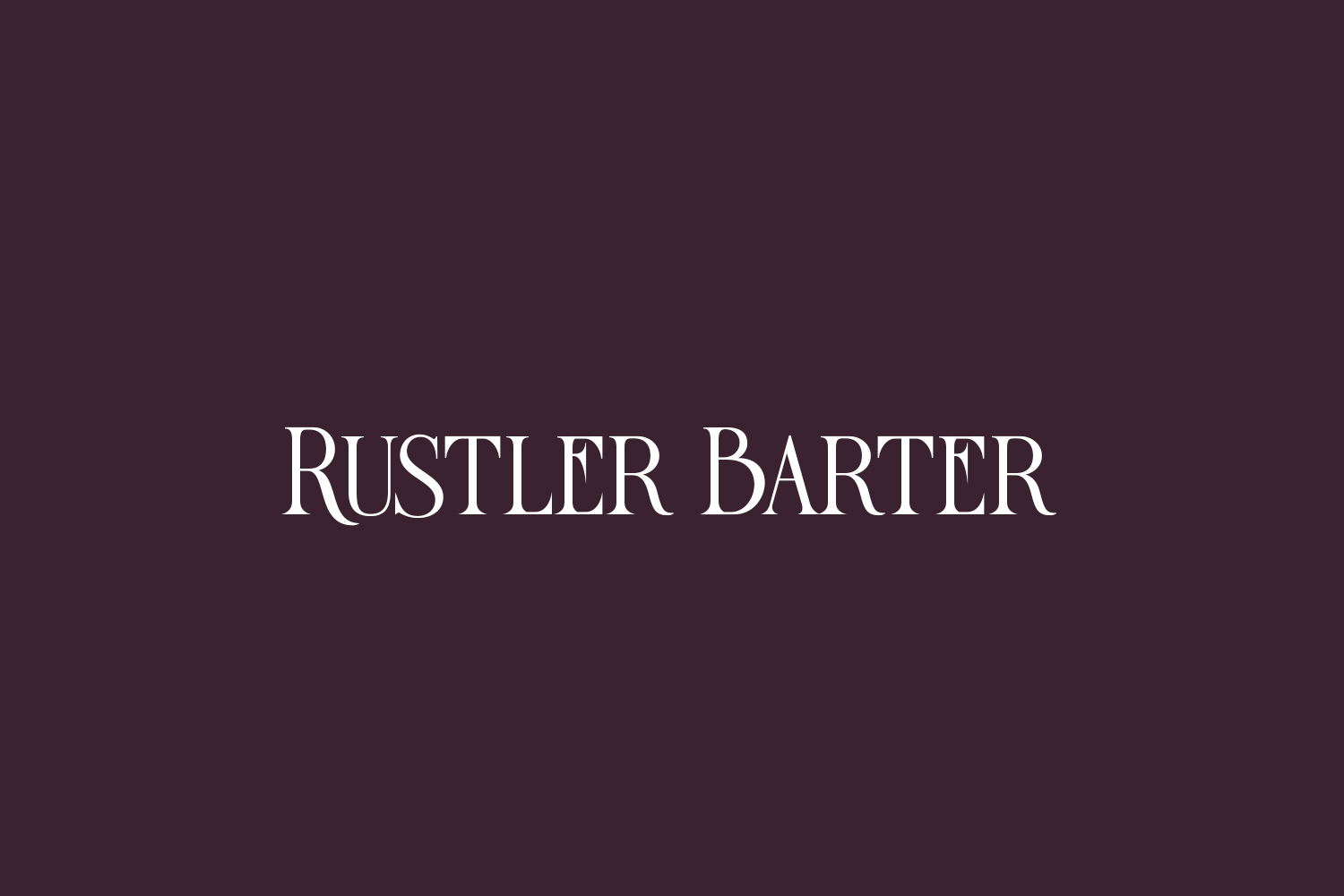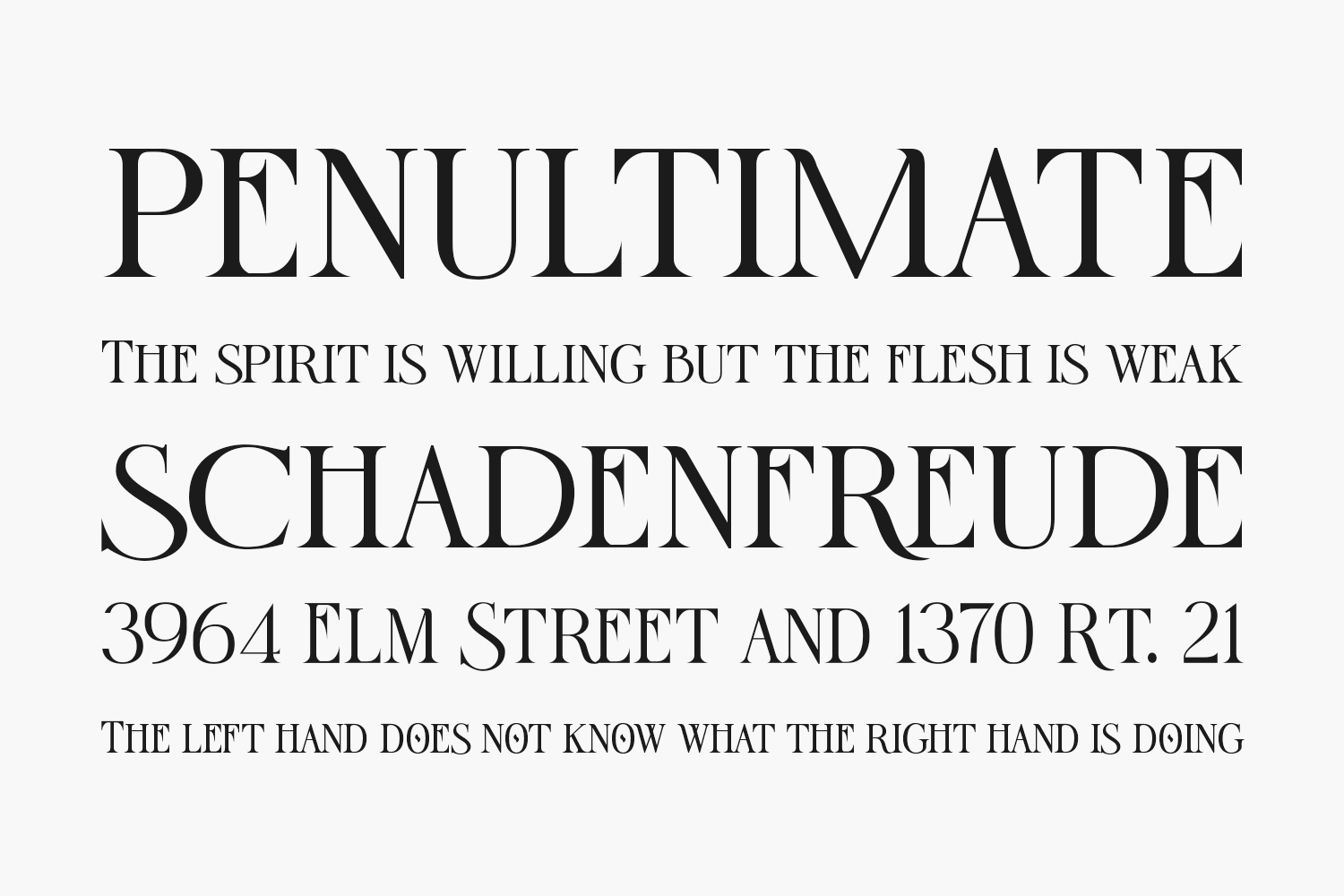
Rustler Barter Free Font is an elegant display font inspired by the Art Deco era. It perfectly represents vintage aesthetics in a modern and minimalist way. The font includes special uppercase letters, alternate characters, and beautiful ligatures. Furthermore, the font is perfect for elegant logo design, packaging, or invitation cards. Please purchase the full version for commercial use.
Designed by ShowUp! Typefoundry